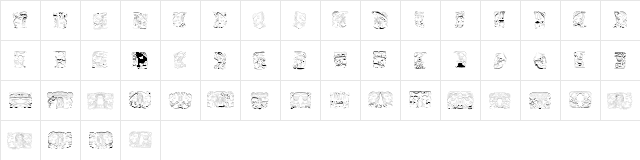
Spirit of Montezuma Regular
Design Context for Spirit of Montezuma Typeface
Spirit of Montezuma is a composed and adaptable typeface that performs quietly and consistently across a wide range of design contexts.